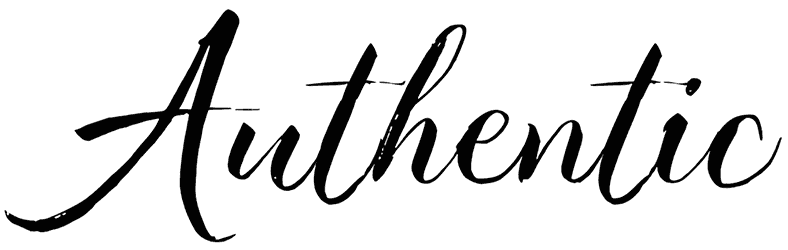
Authentic Font
Authentic is a brush font that looks stylish! It provides script pen brush letters that are elegant. This font has a cursive style to its design, which is creative and gives your typography a friendly vibe with a natural feel.
The letterforms add an artistic touch to your project, but do have in mind that a set of numbers is not included. The Authentic font is so attractive that it fits well in places like invitations, weddings, certificates, branding, logos, books, and more.